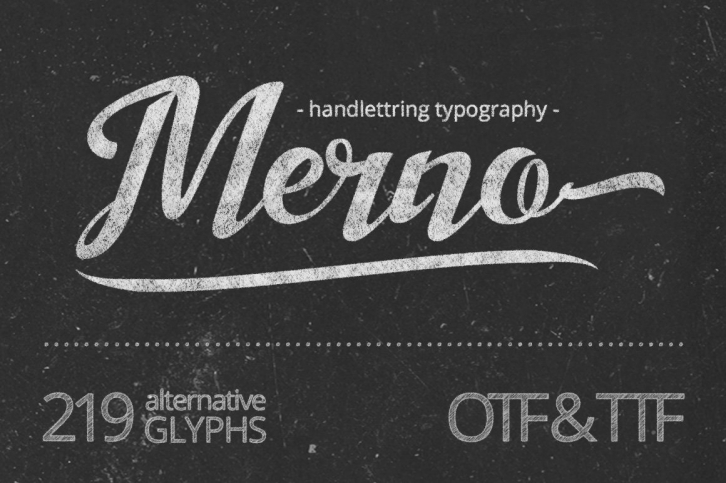
The Merno font is the hand lettering font that can be use for various purposes.such as headings, signature, logos, t-shirt, letterhead, signage, lable, news, posters, badges etc.
The Merno font comes up with 219 glyphs and The alternative characters which can be accessed by using OpenType programs such as Adobe Illustrator and Adobe InDesign.